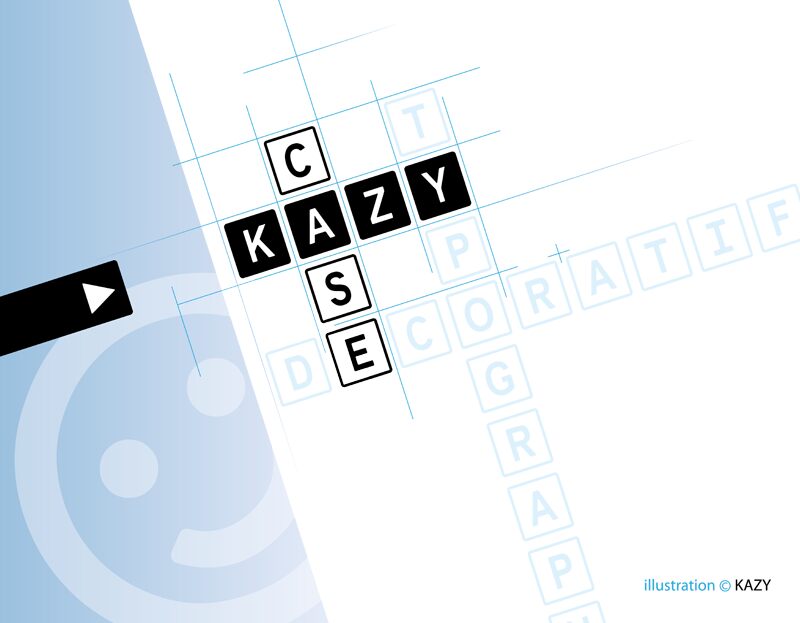
KAZYcase
KAZYcase, conceived by Emmanuel Didier, stands out as a display font that exudes creativity and flair. Its decorative style bursts with personality, featuring bold letterforms that command attention. The playful interplay of solids and voids within each character adds a dynamic rhythm to text, making it particularly eye-catching.
This font's distinct charm is ideal for projects that aim to be memorable and make a statement. From captivating headlines to standout branding and artistic posters, KAZYcase brings an inventive twist to any design it graces. Its aesthetic appeal lies in its ability to inject energy into words while maintaining readability—a balance that not all decorative fonts can achieve.
KAZYcase is an original and fun font.
You will find the black squares with the white text using the shift key on the keyboard. Within the glyphs are many letters with accents and symbols that can be used in many different countries.